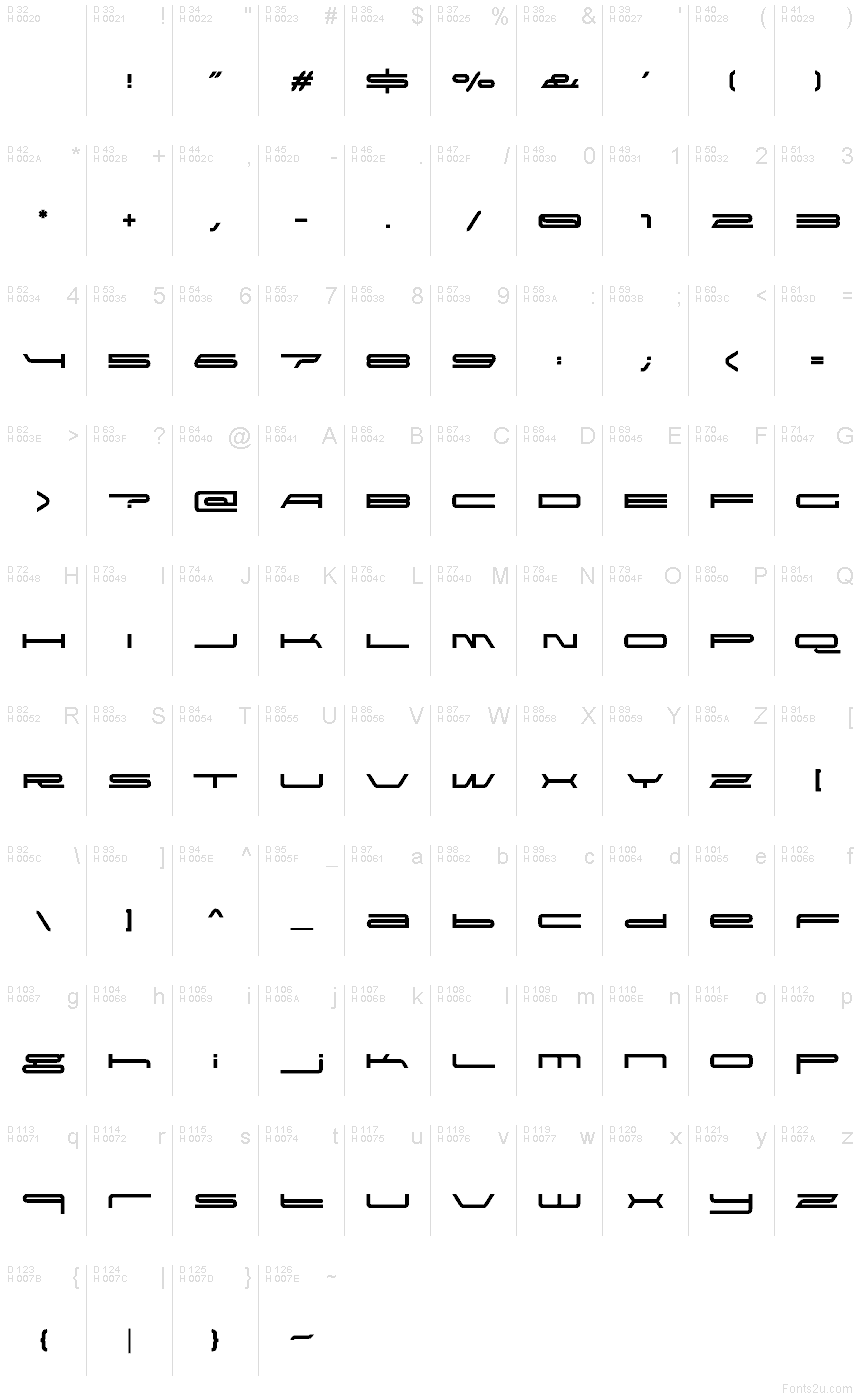
TRIMOD
Trimod font by Marcin Gajos is a free techno display typeface. Its personality comes from carved-in channels and rounded corners that make each letter feel like a machined part—sleek, solid, and a little bit dangerous. The rhythm is tight and continuous, with squared counters and beveled cuts that keep the eye moving, even in short words. It reads like hardware: clean surfaces, precise joints, no fluff.
Using Trimod, headlines snap with sci‑fi poise and a hint of industrial grit—great for esports branding, synthwave posters, techno event flyers, gadget packaging, automotive badges, and streaming overlays. This free font likes space; add a touch of letterspacing and set it large. Pair it with a neutral sans like Inter for body copy to let the sculpted forms really glow.
TRI / DI / ONIMOD typeface is a display font available in three variants.